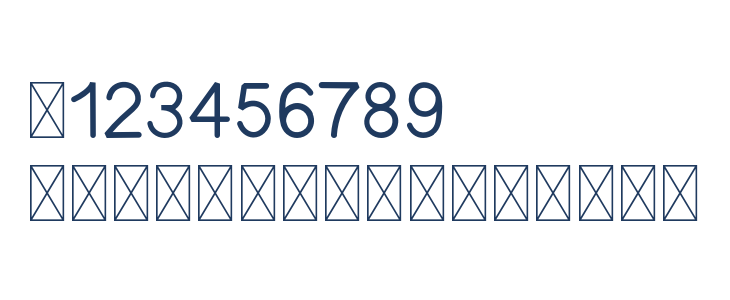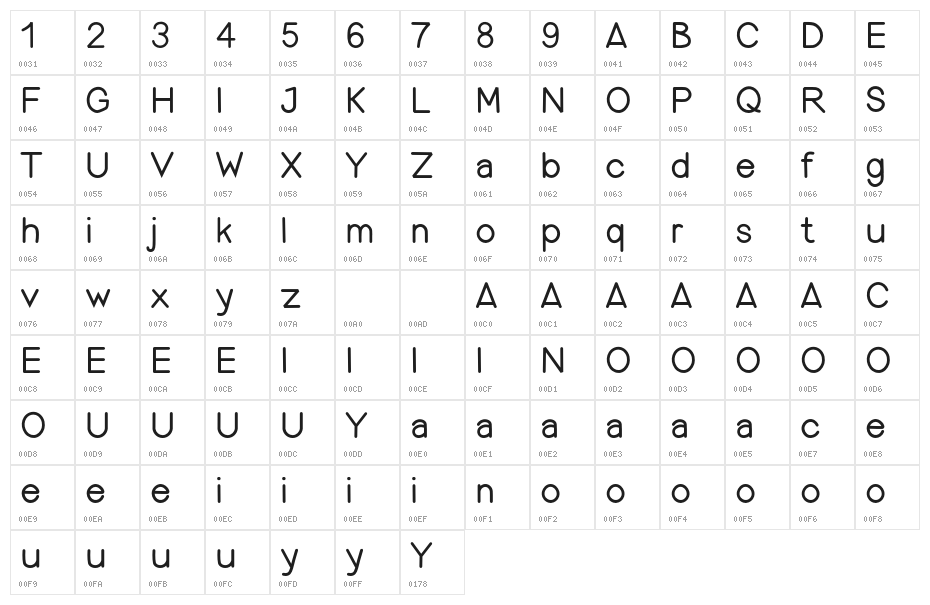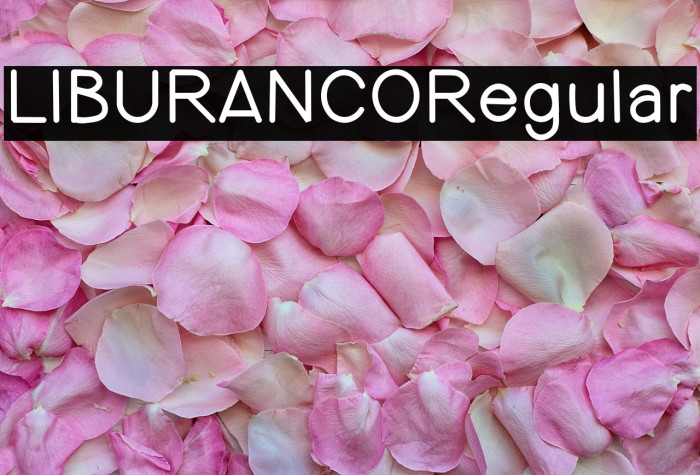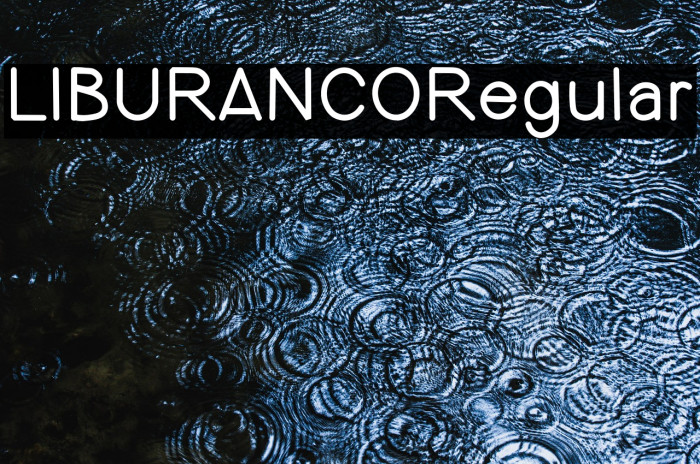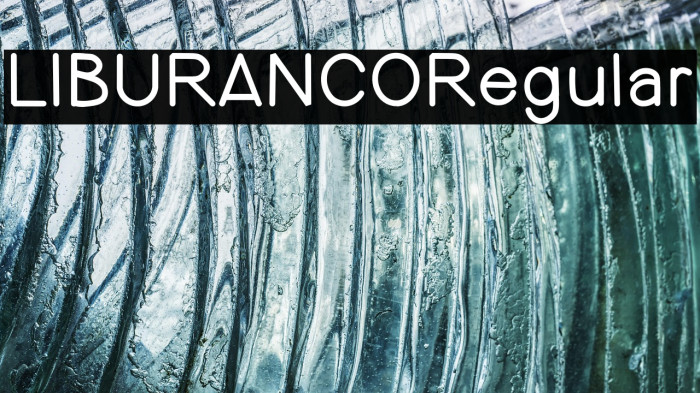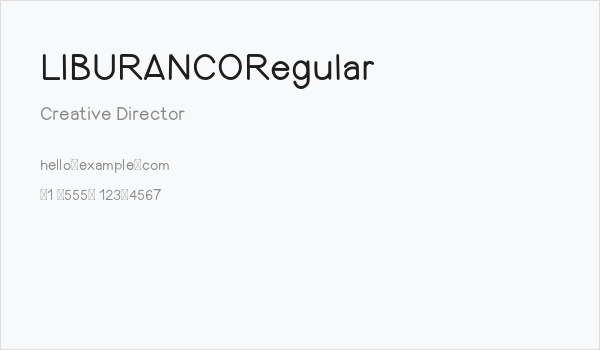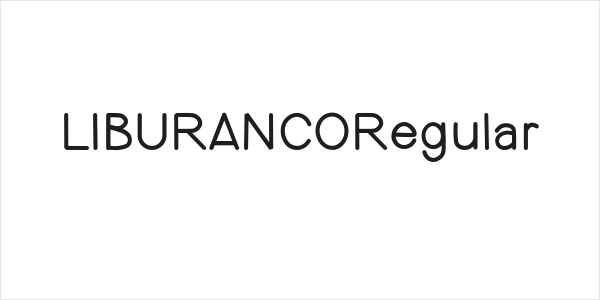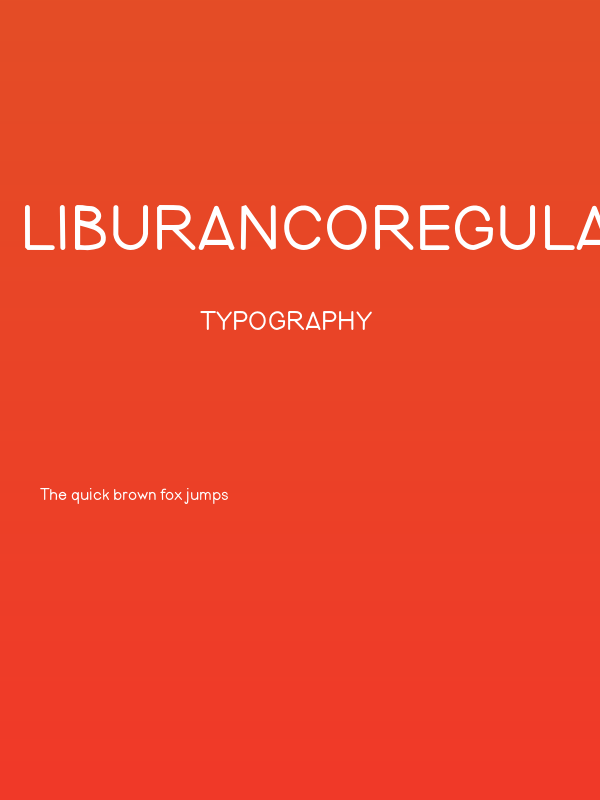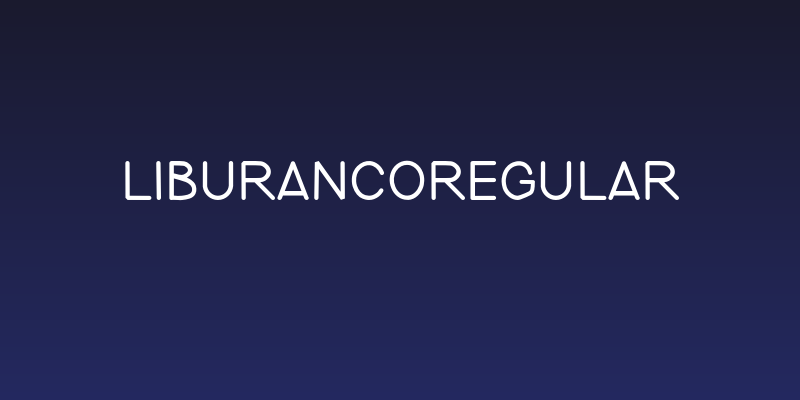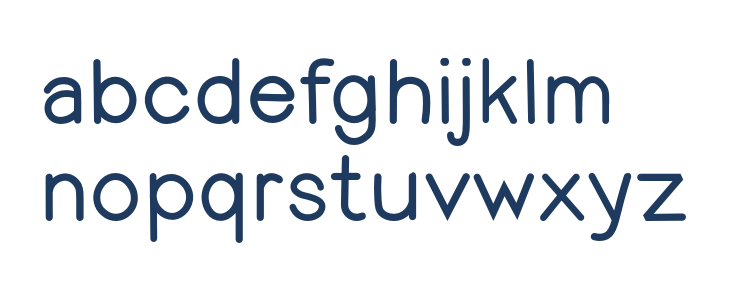
LIBURANCORegular Font
LIBURANCORegular Description
This font features a clean and modern sans-serif style with rounded edges, giving it a friendly and approachable appearance. The characters are evenly spaced, maintaining a consistent width throughout. The uppercase letters are slightly taller than the lowercase, providing a balanced look. The numerals are clear and easy to read, making them suitable for various applications. The overall design is simple yet effective, with a focus on readability and versatility. The special characters are well-integrated, matching the overall aesthetic of the font.
| Proposed Projects | Ideal for branding, web design, user interfaces, and educational materials. |